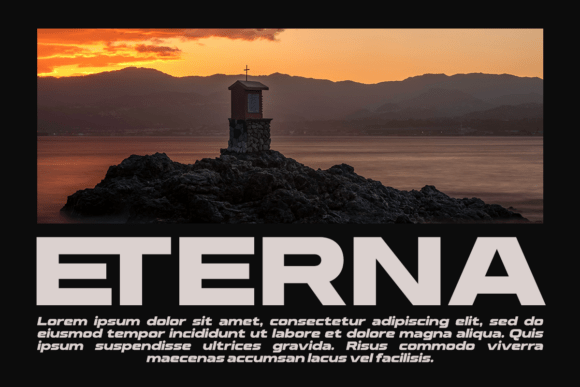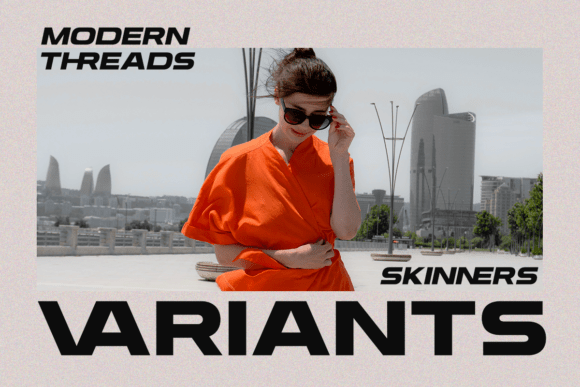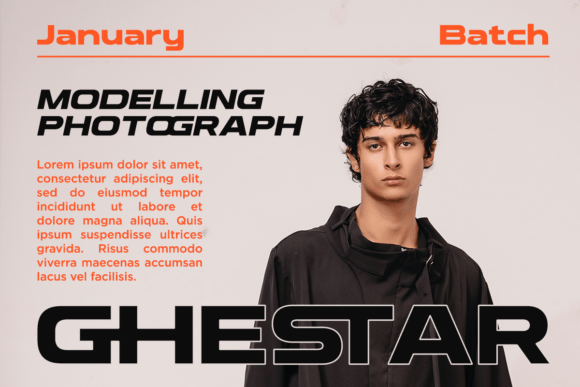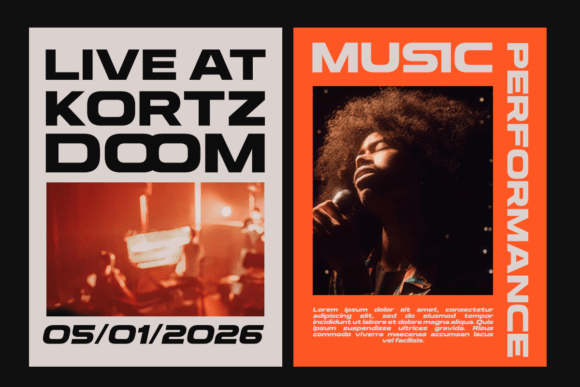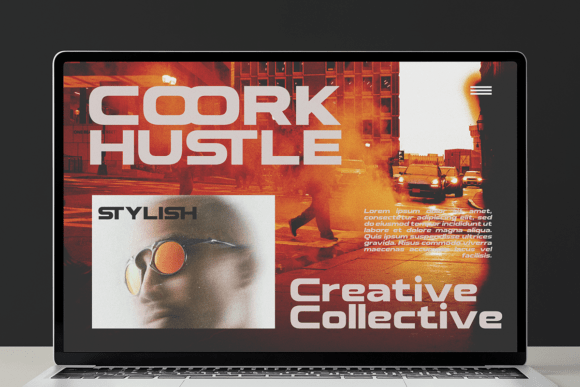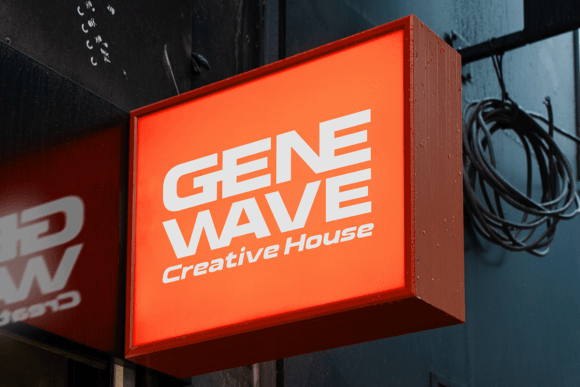
The Finzer Font: A Modern Extended Sans-Serif for Bold Statements
I’ll never forget the time I was working on a project for a tech startup, and I was struggling to find the perfect font to convey their innovative and forward-thinking brand. The client wanted something that would make a bold statement, but still be readable and professional. That’s when I stumbled upon the Finzer font, a modern extended sans-serif designed specifically for bold statements and contemporary visual presence.
A Powerful Aesthetic
The Finzer typeface utilizes wide proportions and clean, sharp cuts to deliver a powerful aesthetic that instantly elevates headlines. Its strong geometric structure makes it highly readable while maintaining a futuristic and premium feel that works across both print and screen. Whether you’re designing a logo, branding materials, posters, or digital advertisements, Finzer is a versatile workhorse that can help you make a lasting impression.
What I Love About Finzer
- ✨ Clean and sharp lines: Finzer’s geometric structure gives it a modern and sleek look that’s perfect for tech branding and digital designs.
- ✅ Excellent readability: Despite its extended width, Finzer remains highly readable even at large sizes, making it perfect for headlines and titles.
- 💡 Versatile: Finzer can be used across a wide range of design applications, from print to digital, and from logos to magazine layouts.
- 🤔 Limited use for body text: While Finzer is excellent for headlines, its extended width and bold style may not be suitable for body text or longer paragraphs.
- ⚠️ May not work well with certain design styles: Finzer’s futuristic feel may not mesh well with more traditional or vintage design styles.
The Finzer font was inspired by the futuristic and technological advancements of the modern world. Its designer aimed to create a font that would convey a sense of innovation and forward-thinking, while still being highly readable and versatile. The result is a font that’s perfect for tech branding, digital designs, and any project that requires a bold and modern aesthetic.
| What is the best use for Finzer font? | Finzer is best used for headlines, titles, and bold statements in designs that require a modern and futuristic feel. |
| Is Finzer suitable for body text? | No, Finzer is not suitable for body text due to its extended width and bold style. It’s best used for headlines and titles. |